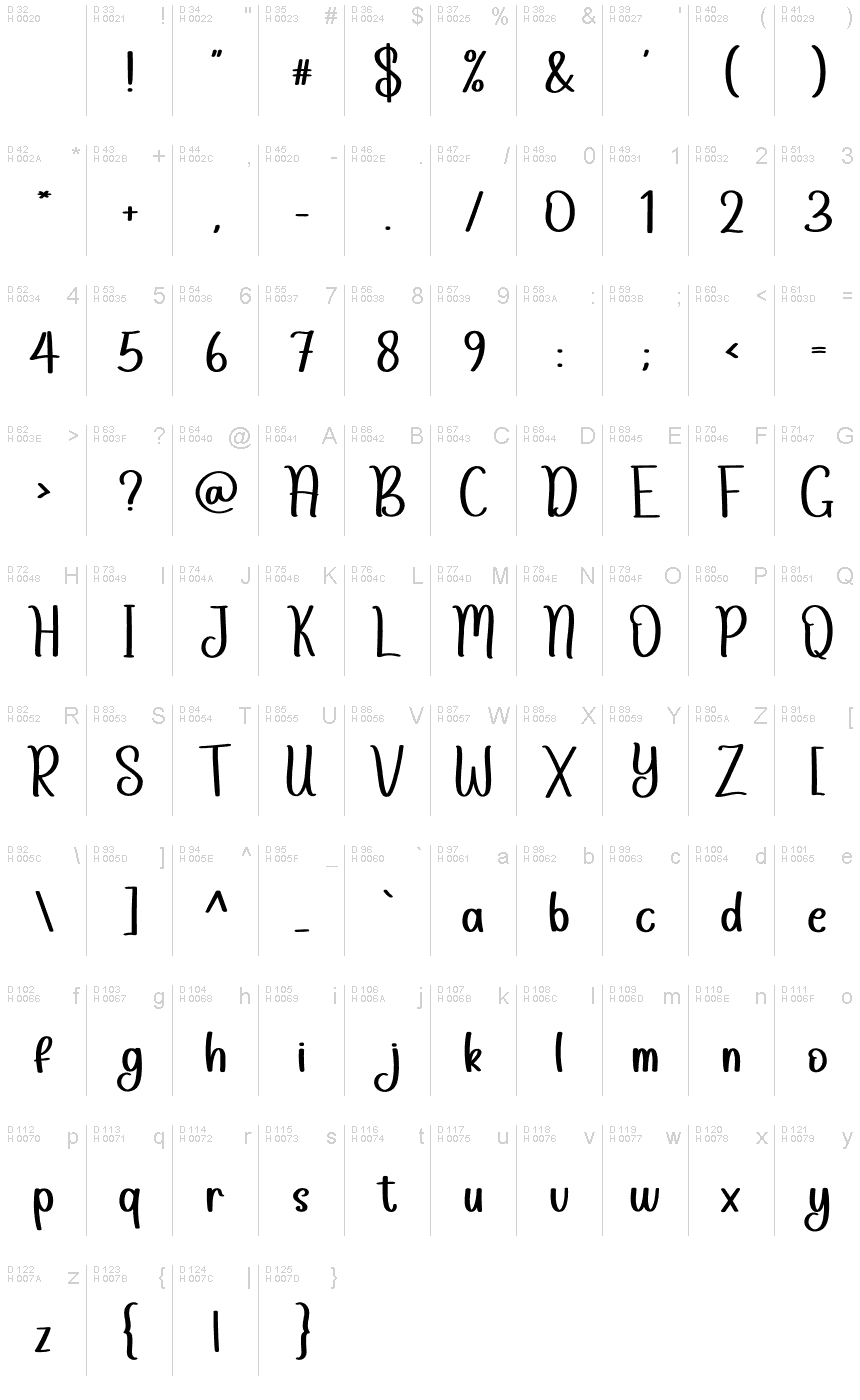
Cowboy
Cowboy, a charming handwritten font by Harlek Studio, brings a touch of rustic elegance to any project.
With its semi-light weight and semi-condensed width, this font adds a subtle sophistication to invitations, greeting cards, and wedding stationery. Its playful yet refined style also makes it suitable for children's books, product packaging, and logo design. Cowboy captures the spirit of adventure and nostalgia, making it an ideal choice for vintage-themed projects such as posters, apparel design, and branding materials. Let your creativity roam free with this versatile typeface!